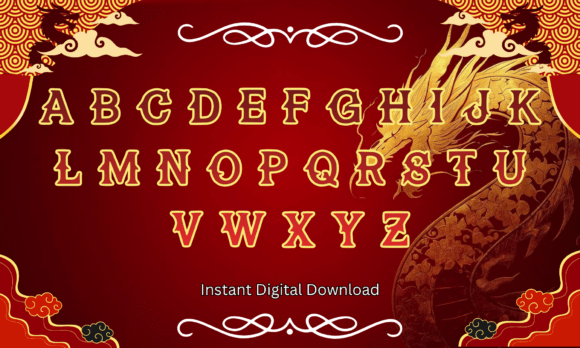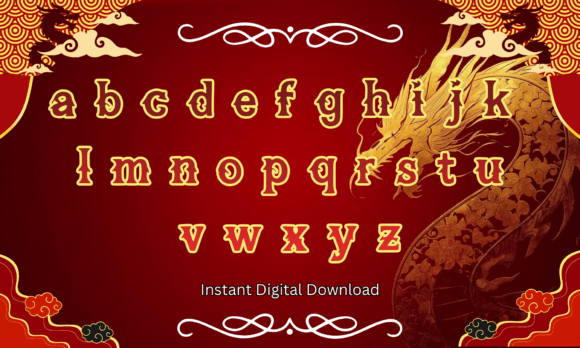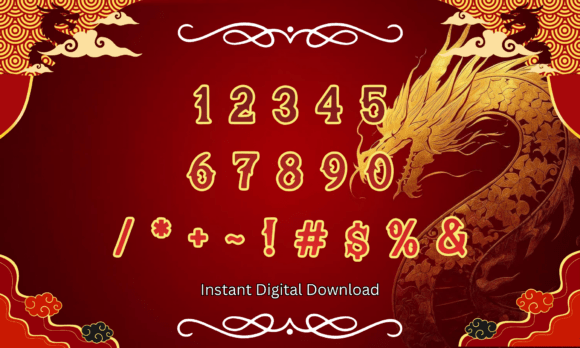
Unleashing the Power of Legends with Dragon King Font
Have you ever been in the midst of a creative project, staring at a blank canvas, and suddenly, a spark of inspiration strikes? That’s exactly what happened when I stumbled upon the majestic Dragon King Font. Its bold and striking display font, inspired by traditional Asian art and imperial dragons, left me breathless. As a designer, I know how crucial it is to have high-quality design resources that can elevate our work to the next level.
The Dragon King Font is more than just a design element – it’s a key to unlocking a world of creative possibilities. With its ornamental curves and powerful aesthetic, this font is perfect for designers who want to make a statement and leave a lasting impression. Whether you’re working on a logo, branding, or packaging design, this font is sure to be a valuable addition to your toolkit.
Key Features of Dragon King Font
- High-quality design resource for creative projects, offering a unique and stylish look.
- Unique characteristics include bold lines, intricate details, and a regal, majestic feel, perfect for fantasy-themed projects.
Honest Review: Dragon King Font
I recently had the opportunity to work with the Dragon King Font, and I must say it’s a fantastic addition to any design resource library. The high quality of the font is evident in its crisp, detailed strokes and elegant flair.
One of the standout features of the Dragon King Font is its versatility. It’s perfect for a creative project that requires a touch of sophistication and whimsy. I love that the font comes with a transparent background, making it easy to customize and layer over other design elements.
Here are some things that work well with the Dragon King Font:
- ✨ High-quality design with crisp strokes and elegant flair
- ✨ Versatile and suitable for a wide range of creative projects
However, I did encounter some limitations with the Dragon King Font:
- ⚠️ Limited font size range, which can make it difficult to scale for certain projects
- ⚠️ Some users may find the font’s aesthetic to be too ornate or distracting
Introduction to Dragon King Font
The Dragon King Font is a high-quality design resource perfect for any creative project. Its unique and majestic design makes it an excellent choice for titles, headings, and other text elements.
Tips for Getting the Most Out of Dragon King Font
To get the most out of the Dragon King Font, use it with a transparent background to create a sense of depth and elegance. You can also experiment with different font sizes, styles, and colors to match your design requirements.
Common Use Cases for Dragon King Font
The Dragon King Font is perfect for use in logos, titles, headings, and other text elements. It’s also great for creating invitations, posters, and other marketing materials.